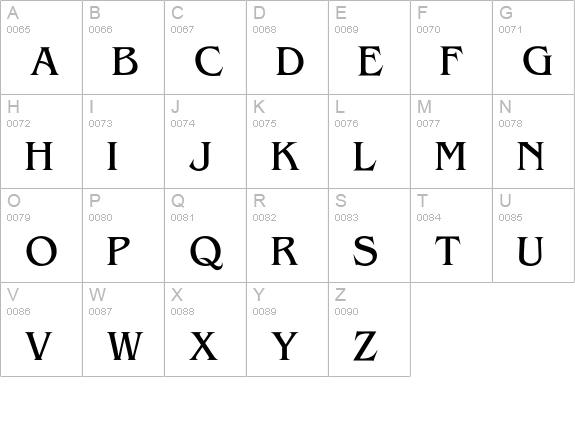
Benguiat* Book is a comfortable, highly readable variant in the Benguiat* typeface family \xE2\x80\x94 well suited to long-form body text, articles, and editorial content.
Benguiat Book font is a timeless and elegant typeface that exudes sophistication and class. With its classic serifs and graceful curves, this font is perfect for adding a touch of refinement to any design project. Whether you're creating invitations, branding materials, or editorial content, Benguiat Book will elevate your work with its timeless appeal. The best part? Benguiat Book font is available for free download at FontsMarket.com. Now you can access this exquisite font without breaking the bank, making it a valuable addition to your design arsenal. Don't miss out on the opportunity to enhance your projects with the beauty and versatility of Benguiat Book font. Download it today and add a touch of elegance to your designs.